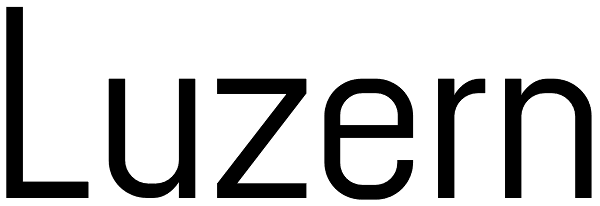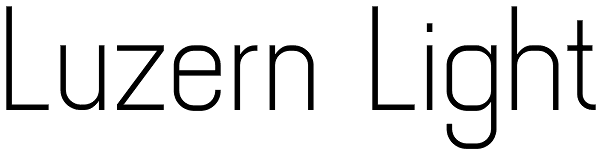
Luzern
Inspired by the most common grotesque heights and boxed sans serif typefaces, Luzern Typefaces was built with low-mid contrast sans serif and was designed in quite tall caps height and lower x-height which represents the flavor of the dynamic...